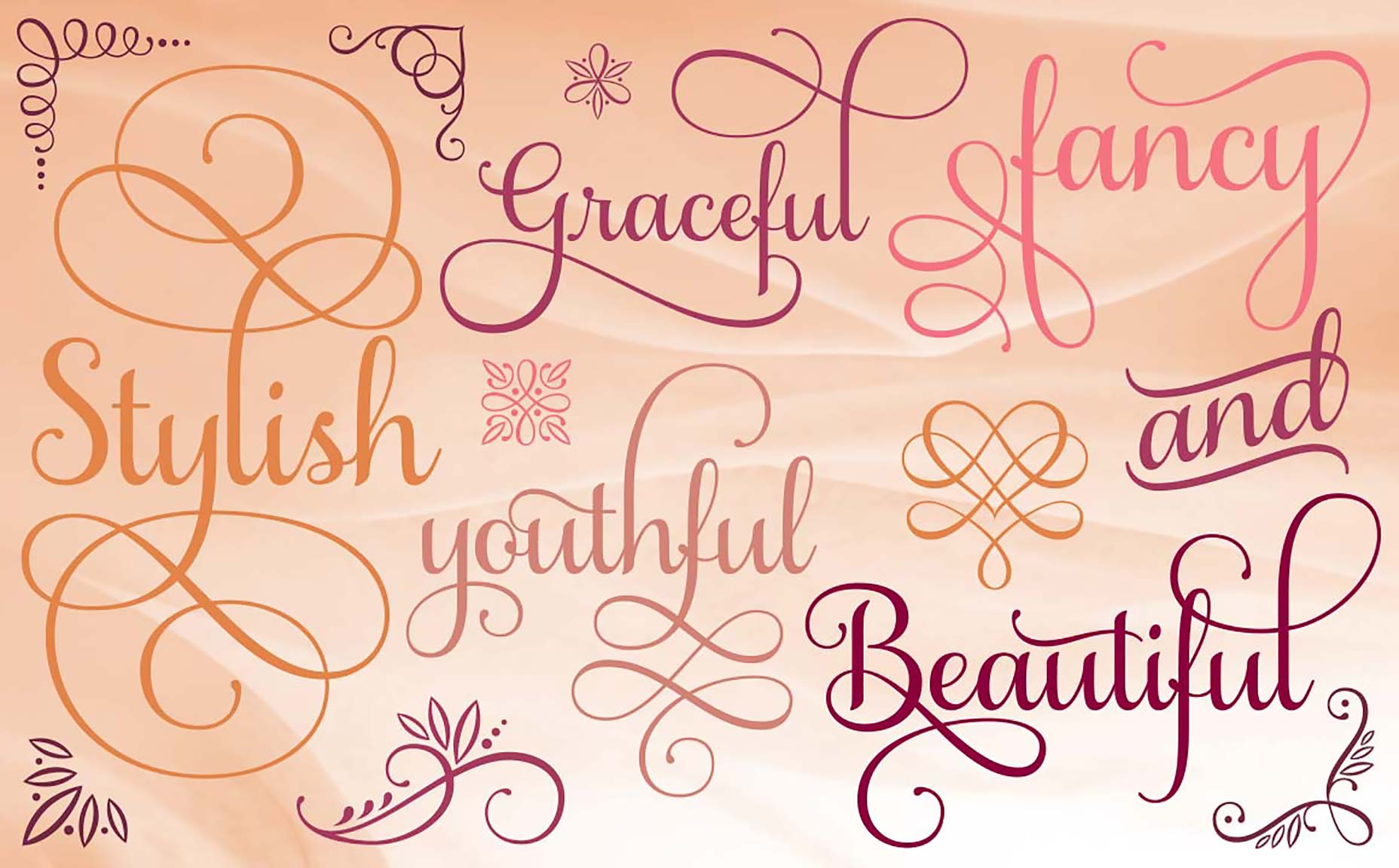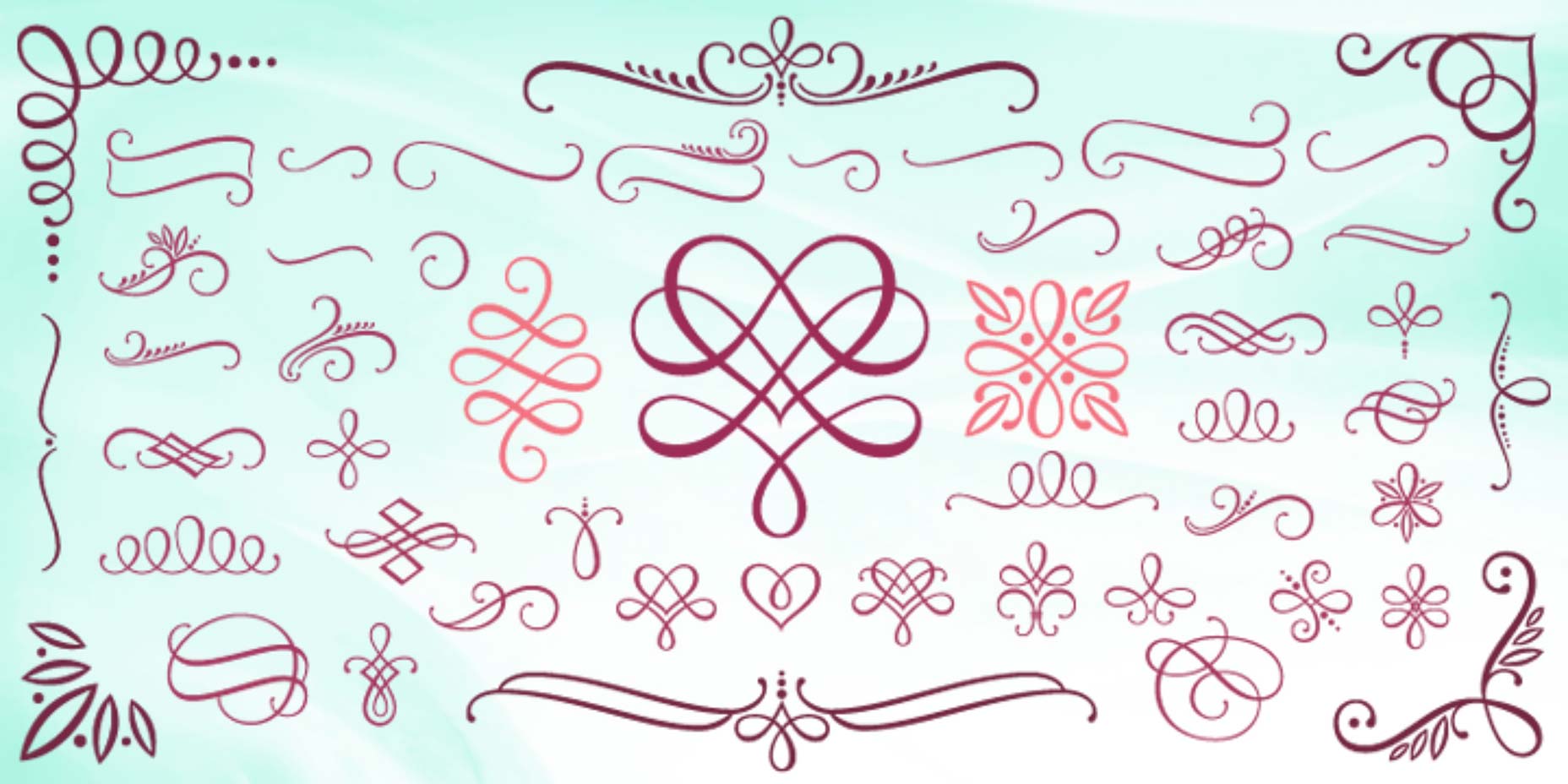
Laura Worthington is one of the new generation of type designers who are rewriting the rules of type foundries. Her beautiful lettering and professionally crafted fonts have made her one of the most popular type designers working today.
One of her best-known, and most-loved type families is Samantha, a bright and cheery font family based on slick pen lettering. The consistent rhythm and the open shapes create a surprisingly readable font with a touch of 1950s glamor.
Until now, Samantha has only been suitable for a restricted set of uses. That’s because the design features fine lines, which can be lost at smaller sizes, or lower resolutions.
So we were delighted to discover Samantha Craft, a brand new reworking of Samantha that radically increases the font’s usability. Samantha Craft features the same beautiful lines as the rest of the Samantha family, but the thickness of the strokes has been carefully increased to make Samantha Craft far more versatile.
Thanks to Samantha Craft’s thicker strokes, the font can be used at smaller sizes without the details being lost. You can use Samantha Craft on lower quality paper, even newsprint. The name “Craft” is a tribute to the crafters who use die-cutting machines, and the extra thickness on the strokes makes cutting out and weeding far easier too.
With wedding season just a few months away, Samantha Craft is a great choice for those invitations. It’s also a great option for clothes labels, or even restaurant menus.